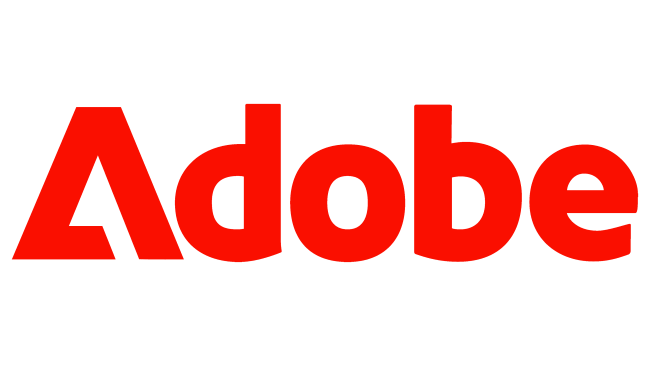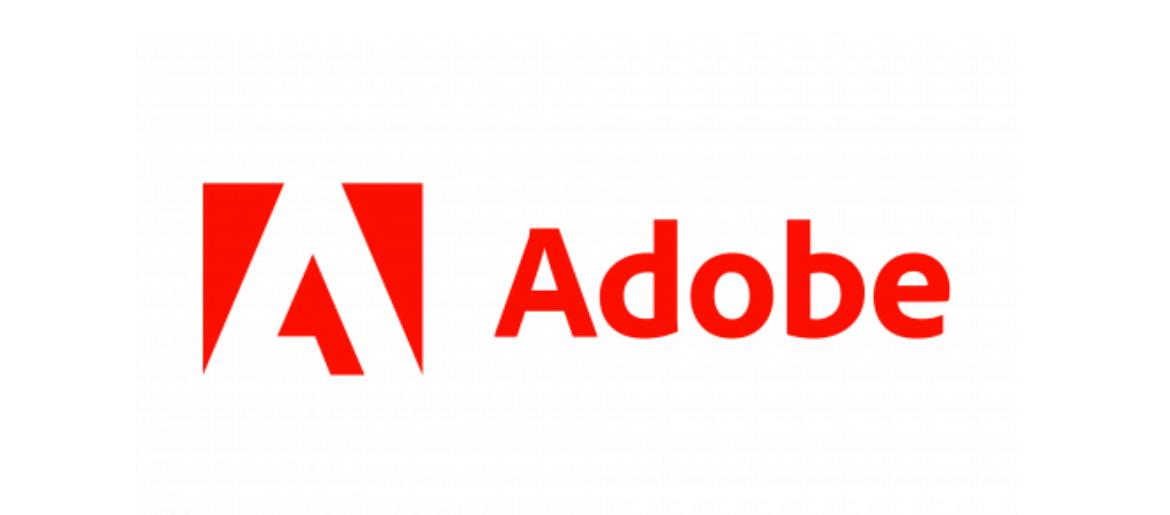
Adobe Font
Adobe Font has always stood out because of how creative yet professional it feels. Whenever you see the company’s branding, it’s clear how much the Adobe logo font shapes its identity as a leader in design and digital innovation. The typeface reflects the perfect balance between creativity and reliability. The Adobe logo font is based on a customized version of Myriad Pro, a clean and versatile sans-serif typeface. This choice communicates modernity, clarity, and adaptability—all qualities that define Adobe as a brand, looking consistent across digital platforms, software packaging, and corporate materials.
Compared to other tech companies, Adobe Font feels more creative and design-focused. That’s why it resonates so strongly with creative professionals worldwide. Adobe Font proves that the right logo font can inspire trust, creativity, and innovation at the same time.